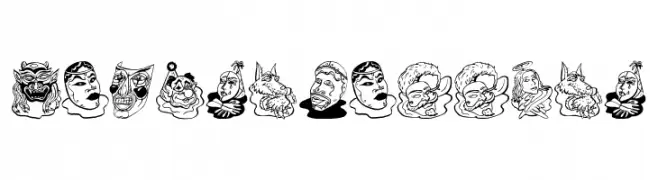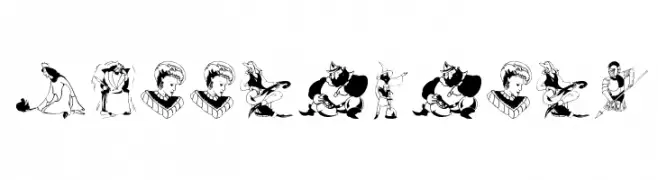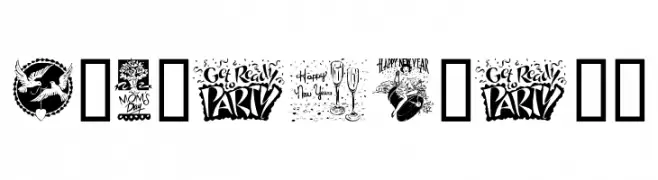
Cartoonish, movie-themed illustrated display font.
Whimsical zodiac-themed display font with illustrated glyphs.
Cartoonish, woodcutter-themed pictorial font with unique illustrations for each character.
Ornate, pictorial font with medieval and theatrical character illustrations.
A whimsical, mask-themed decorative font with hand-drawn illustrations.
Decorative dingbat font with occasion-themed illustrations.
Egyptian-themed silhouette pictogram font with strong visual storytelling.
Ornate, pictorial font based on indigenous American symbols.